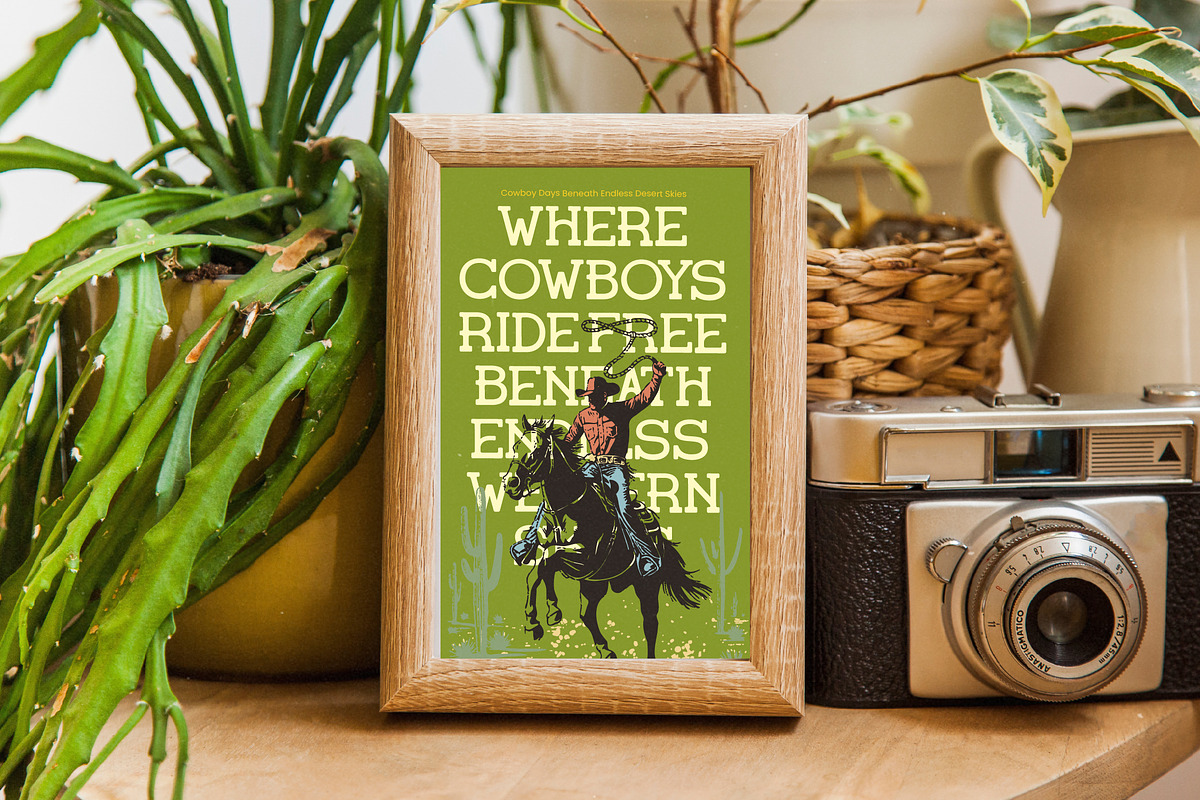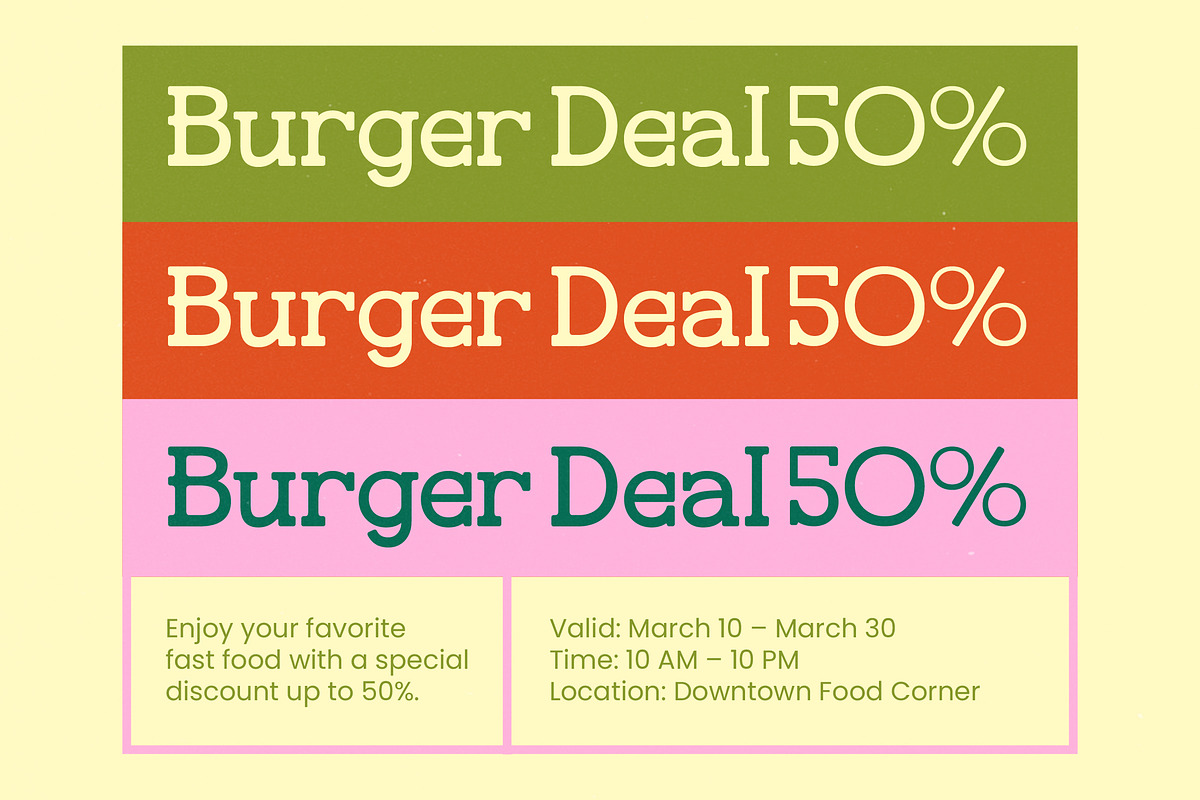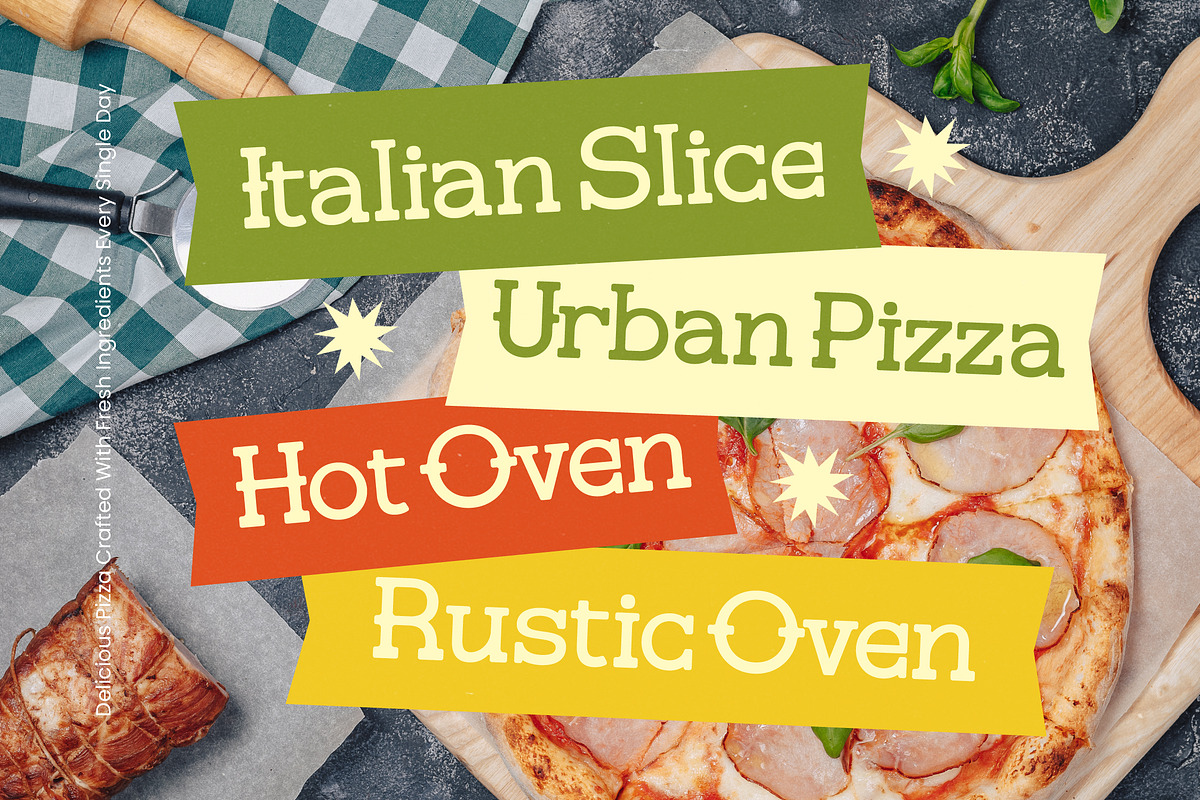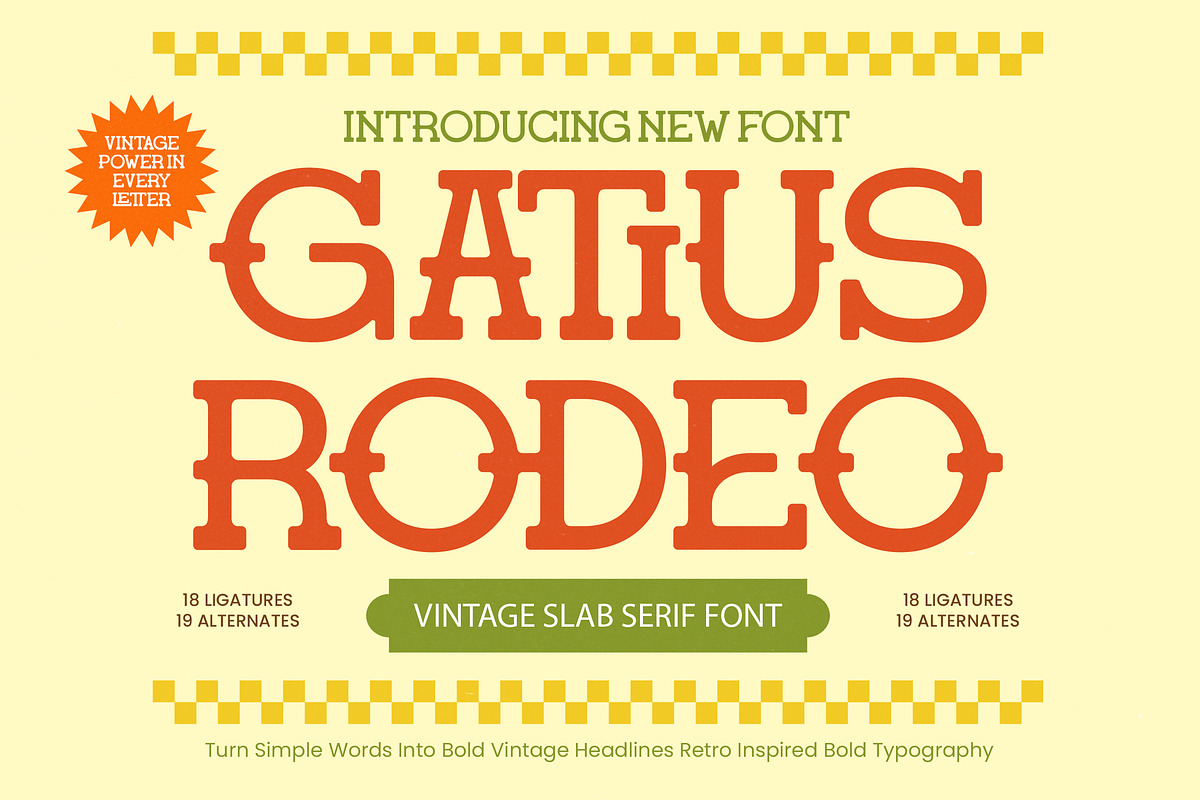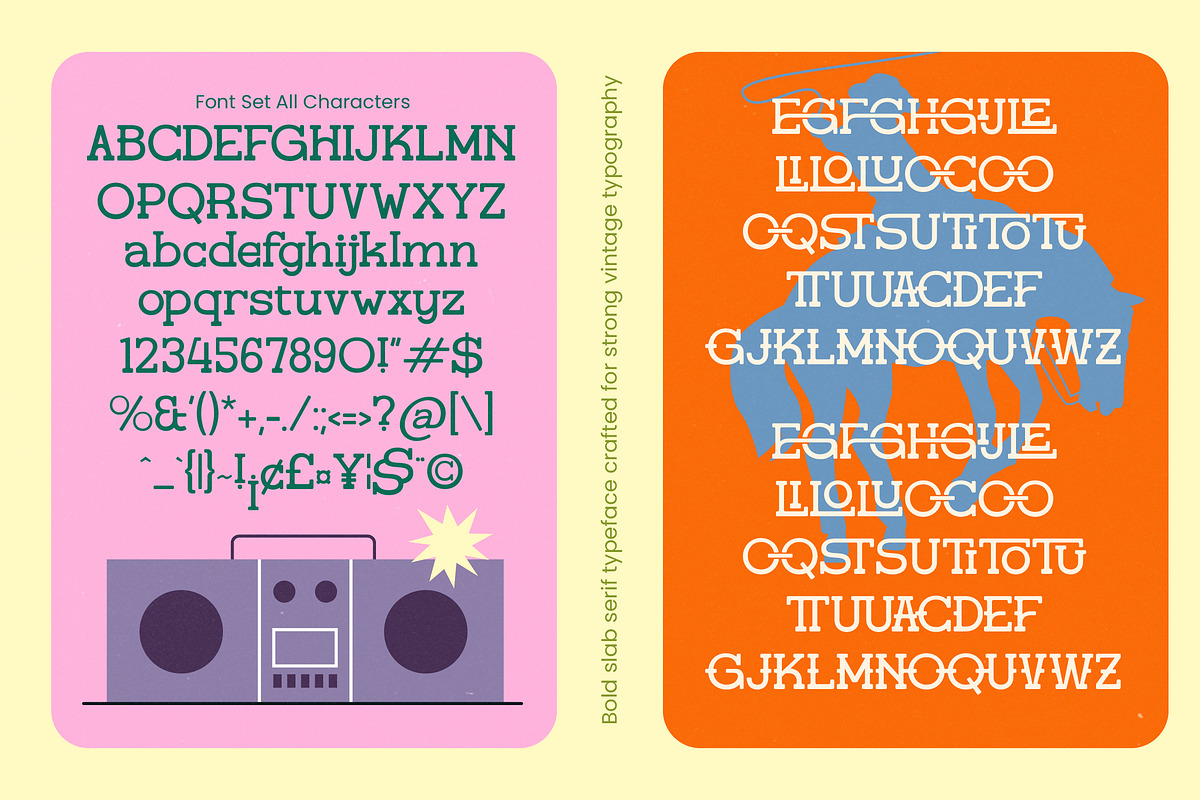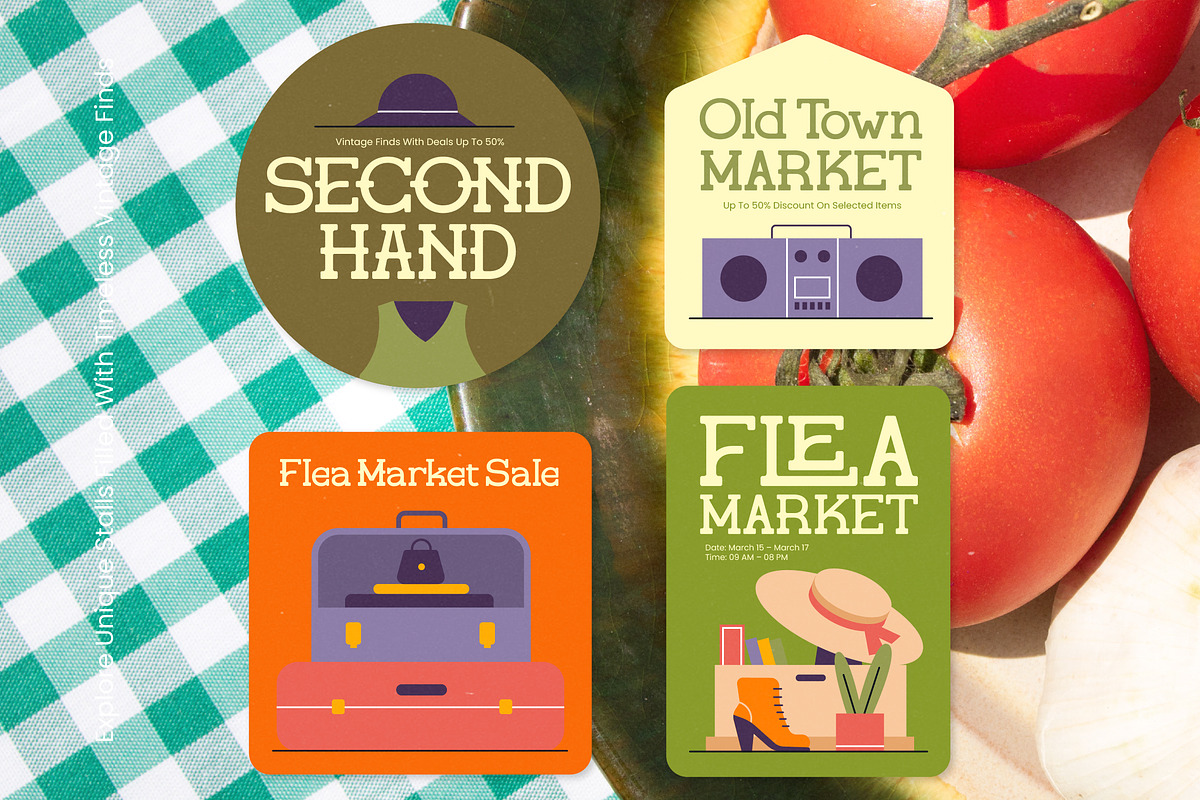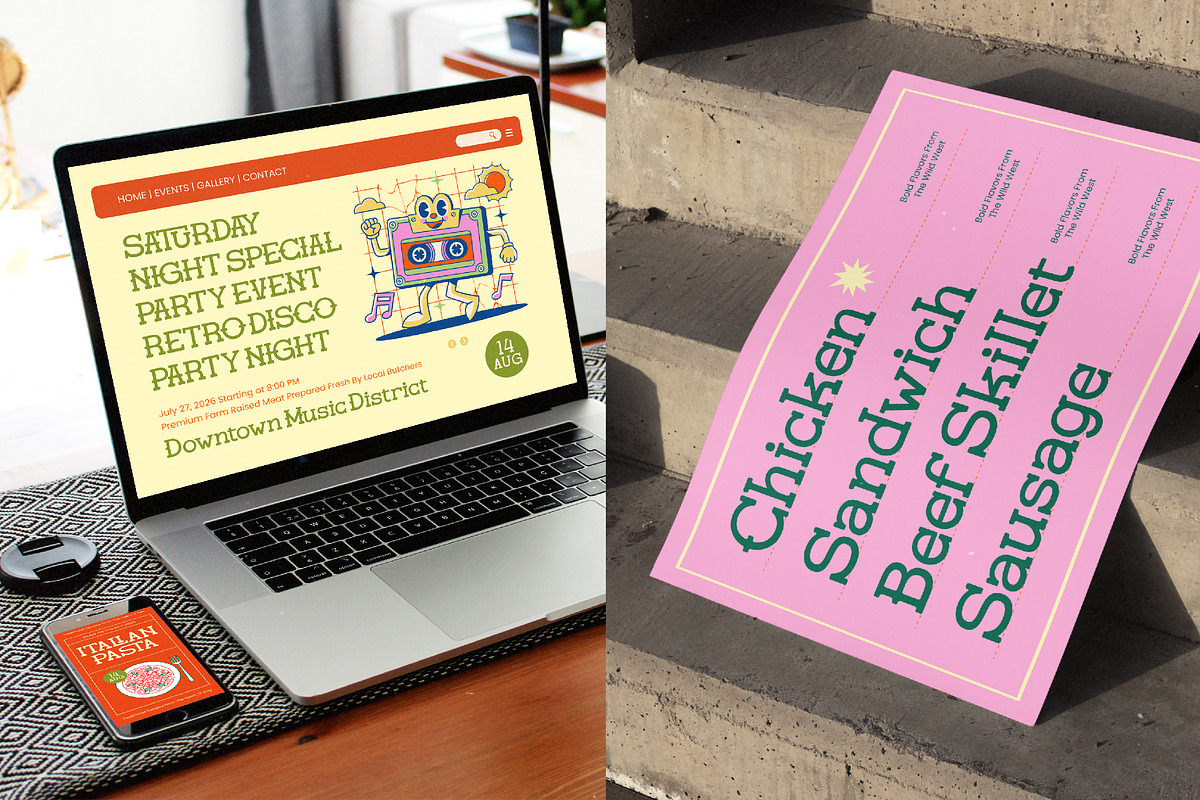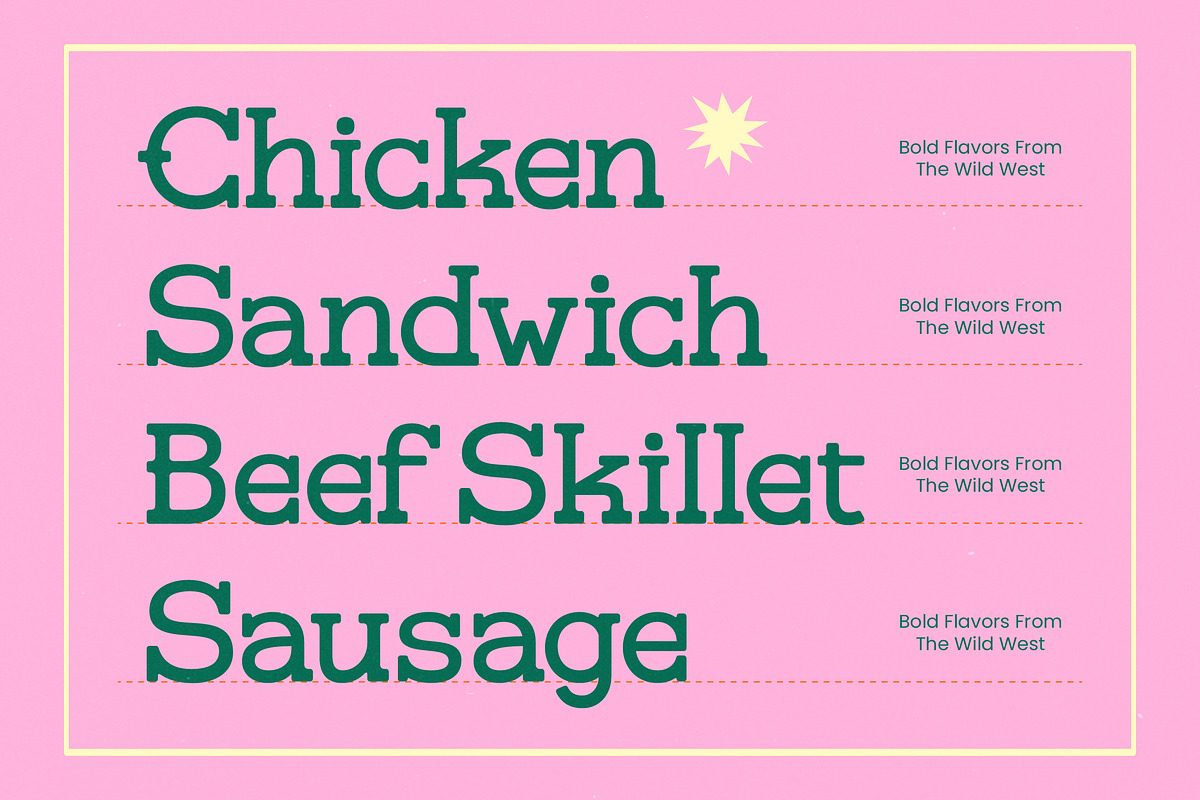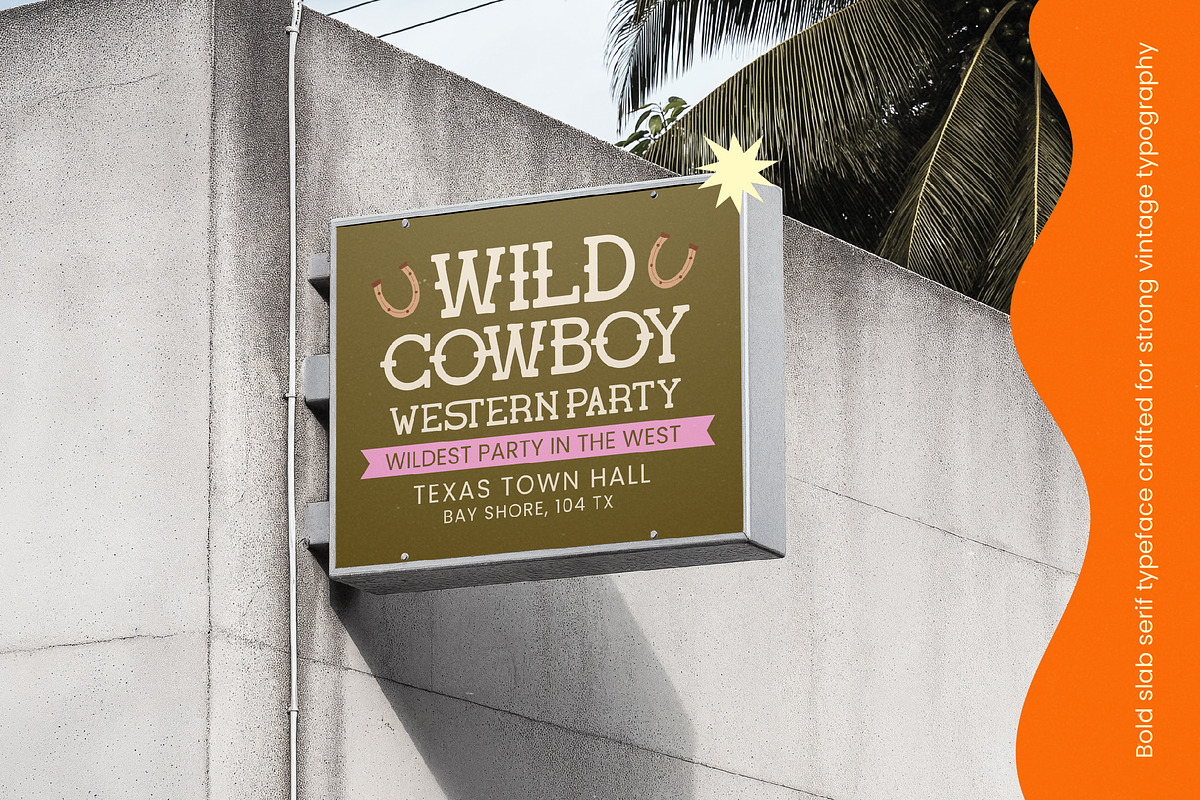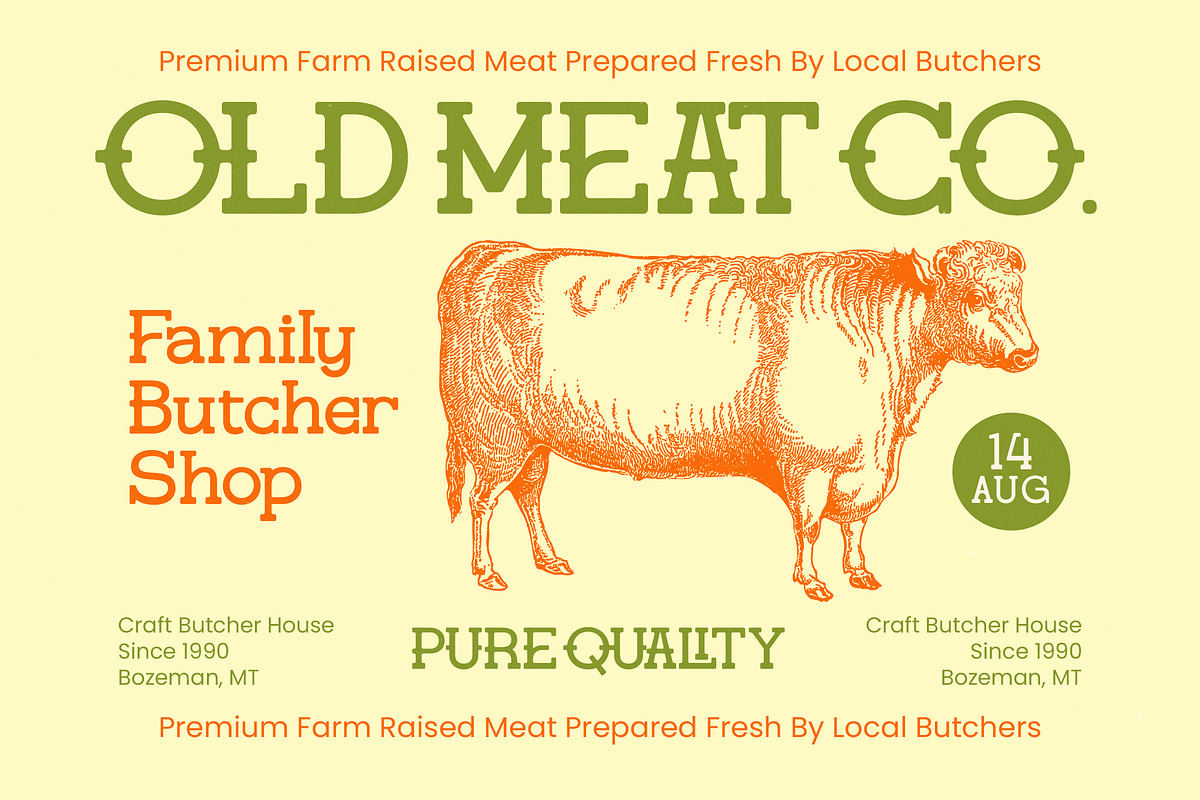
Gatius Rodeo Vintage Slab Serif
Gatius Rodeo - Vintage Slab Serif Font , Unleash a raw, untamed spirit in your designs with the striking presence of Gatius Rodeo. This font captures the essence of classic Americana while maintaining a sharp, professional edge for contemporary creators.
Drawing deep inspiration from mid-century rodeo posters and the rugged charm of western storefronts, this typeface tells a story of heritage and power. Every stroke is crafted to evoke the sun-drenched atmosphere of the frontier, blending historical weight with a fresh, artistic perspective.
This modern serif display is designed to command attention, offering a sophisticated alternative to standard block fonts. By integrating luxury typography elements with a high-contrast serif structure, it serves as an essential editorial font for projects requiring a significant branding impact.
As the modern serif trend continues to dominate the creative landscape, this typeface stands out by offering a unique bridge between nostalgia and the future. It fits perfectly within the current demand for editorial display fonts that prioritize character-driven typography and authentic storytelling.
From high-impact logo design to cohesive corporate branding, the versatility of this font makes it a staple for any editorial layout. It brings a distinct personality to premium packaging, adds a rustic touch to a destination wedding, and provides a bold statement for avant-garde fashion campaigns.
Beyond its striking visuals, the package is loaded with technical excellence including a wide array of ligatures and alternates to customize every word. It also features comprehensive multilingual support and international characters, ensuring your message resonates across global borders with swashes and flair.
Numerals
Punctuations (OpenType Standard)
Accents (Multilingual Characters)
Ligatures and Alternative Style Stylistic Set